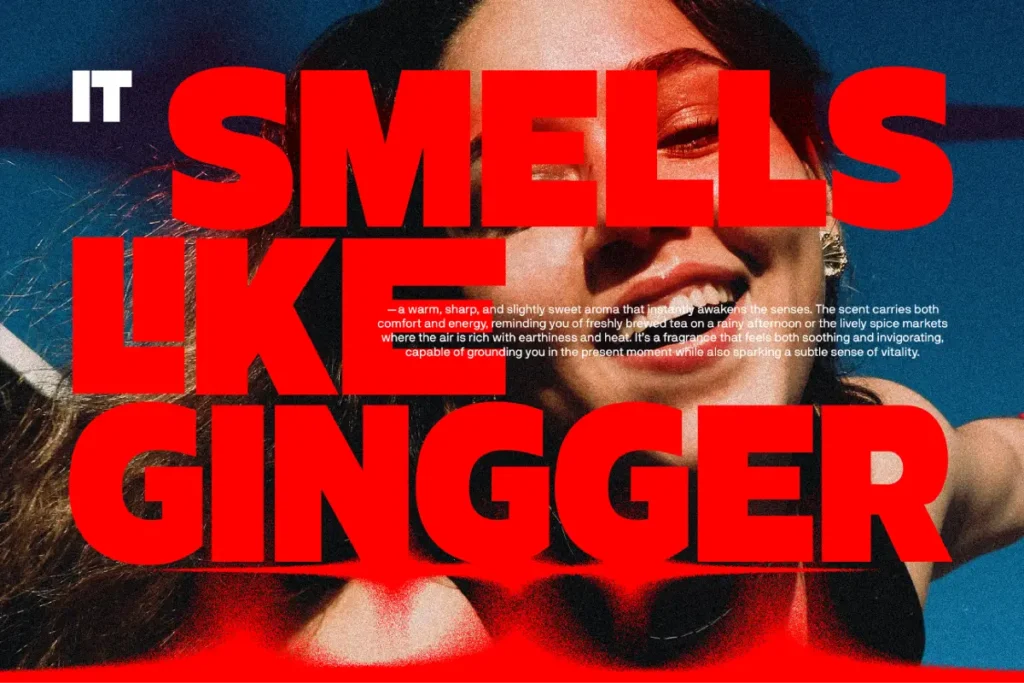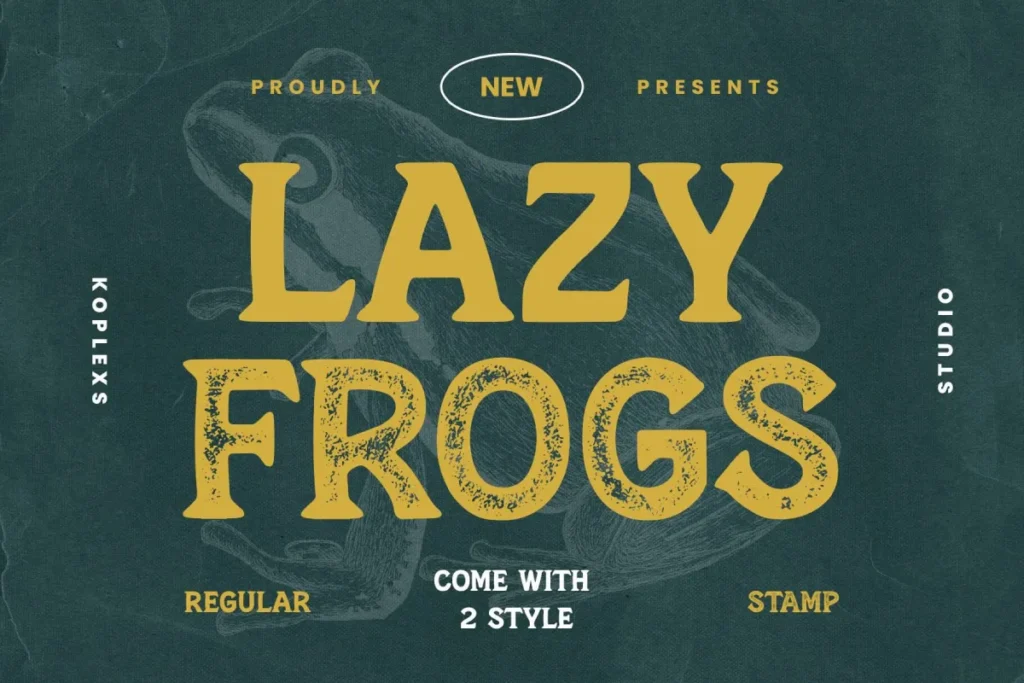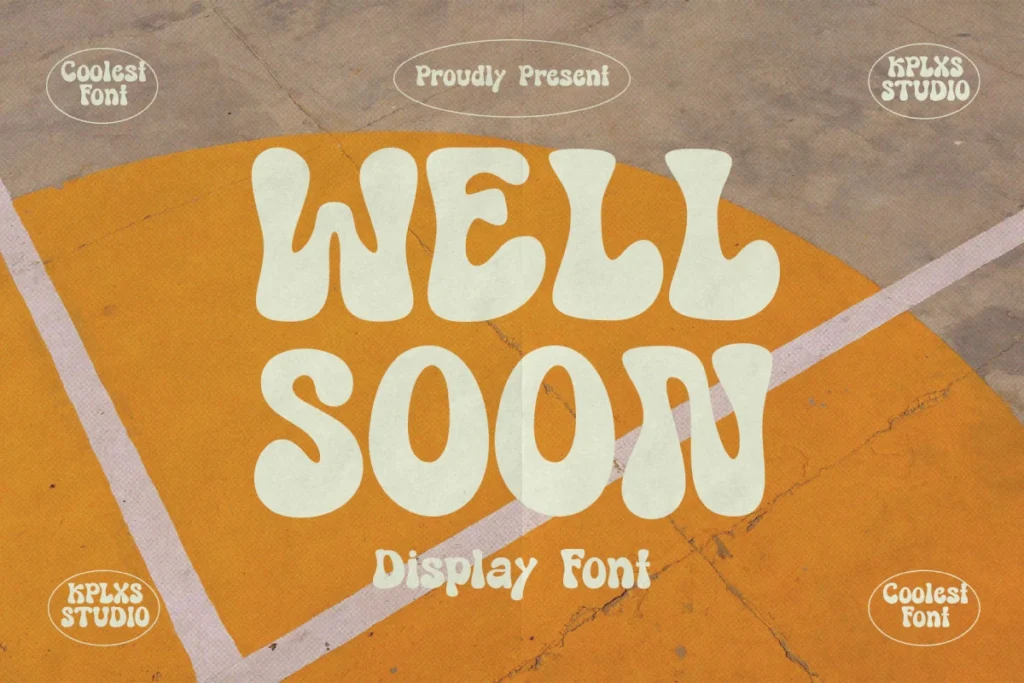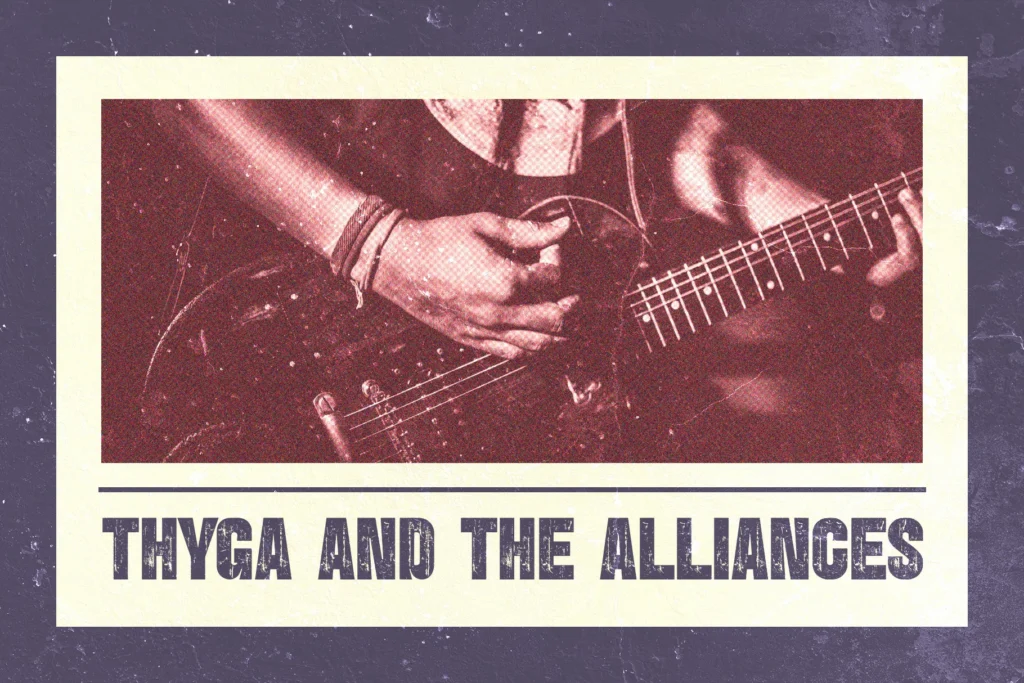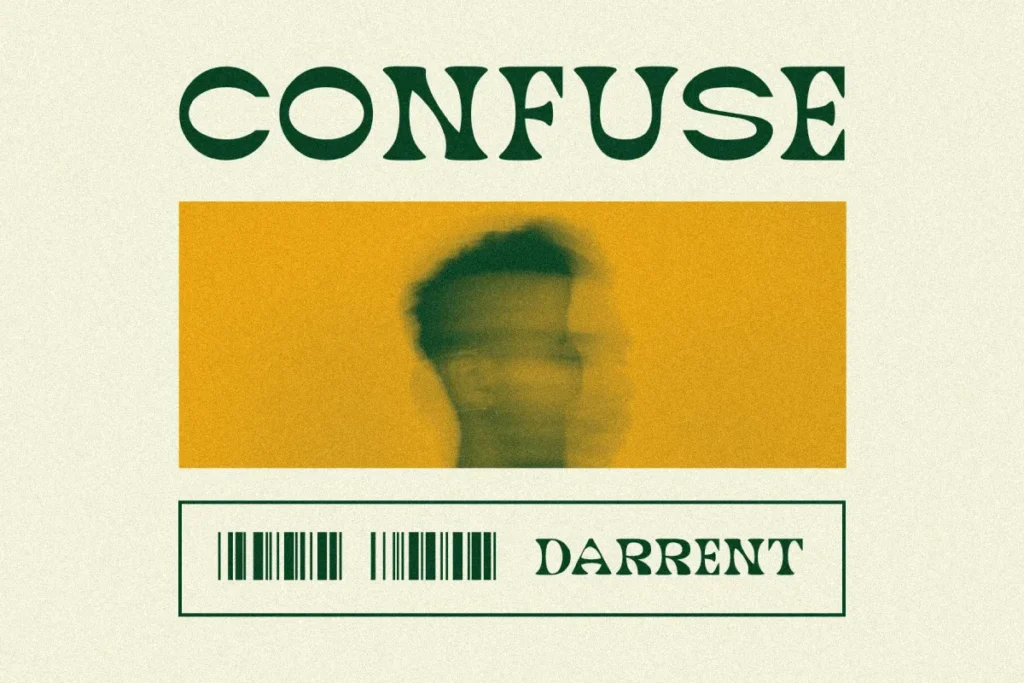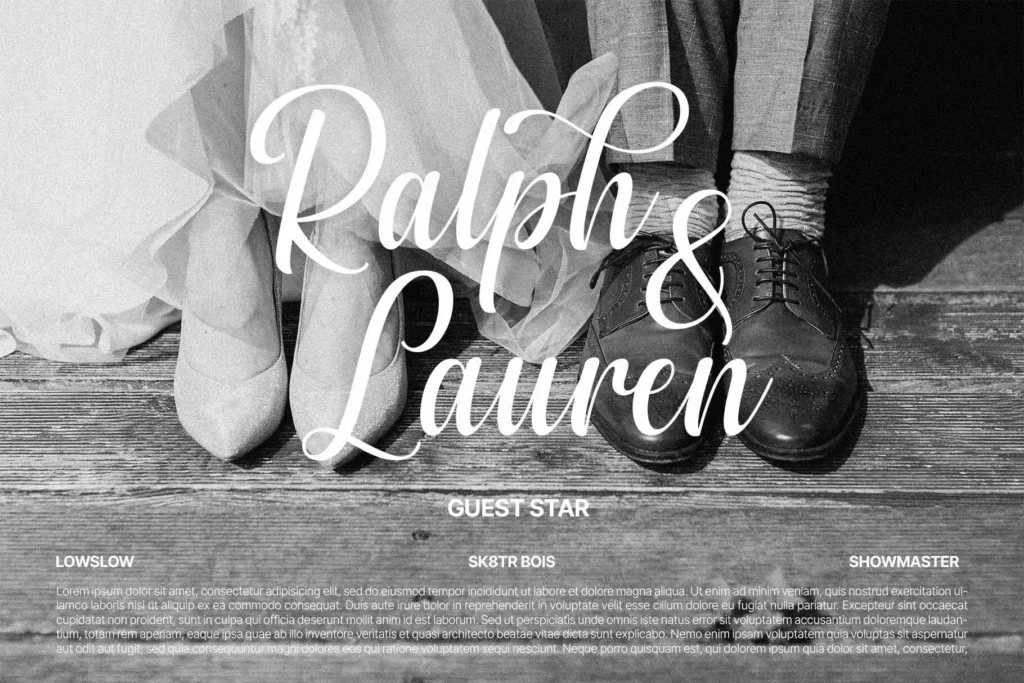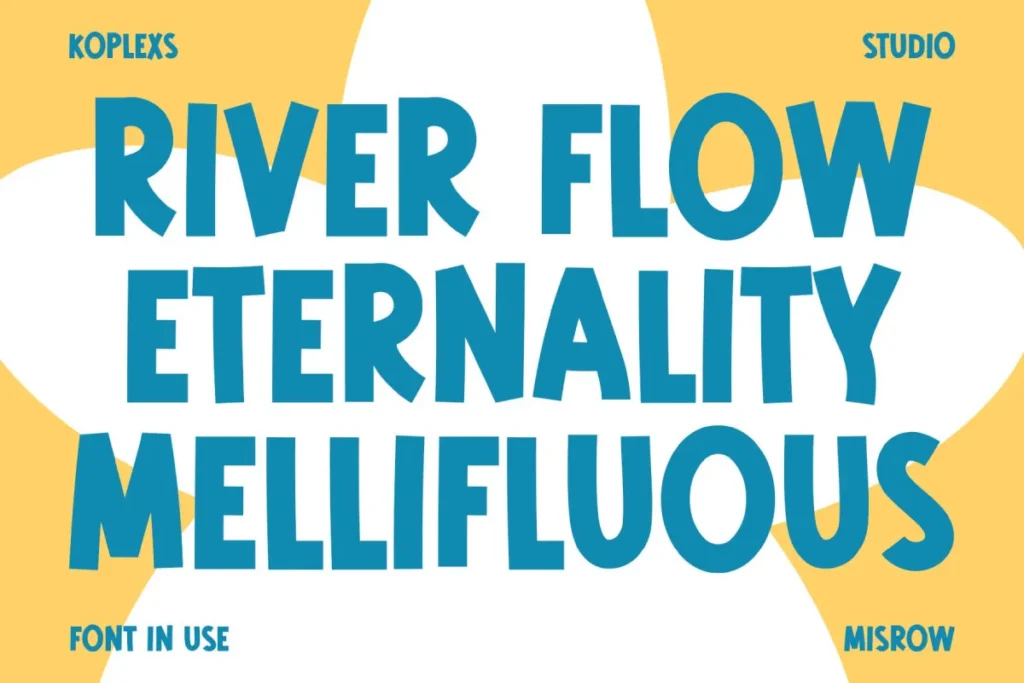
The Font Choice That Decides Your Clicks
Best Fonts for Thumbnails. Scroll through YouTube for just a few seconds and something becomes obvious.
Some videos immediately pull your attention, while others fade into the background.
In many cases, the difference is not the image. It is the text on the thumbnail.
Typography plays a quiet but powerful role in how viewers decide what to click. According to multiple creator economy studies and YouTube partner insights, thumbnails influence more than 70 percent of click decisions, and font choice is one of the biggest factors inside that visual moment.
Top creators understand this deeply.
They do not randomly choose a thumbnail font. They test it, refine it, and stay consistent with it because the right font can:
- Communicate emotion instantly
- Stay readable on small mobile screens
- Strengthen brand recognition
- Increase click-through rate without changing the video
In this article, we explore the best fonts for thumbnails used by top creators, why these fonts perform so well, and how typography quietly separates high-performing videos from ignored ones.
Why Top Creators Take Thumbnail Fonts Seriously
Fonts Shape First Impressions
Before someone reads your title, their brain reacts to the shape of the text.
Fonts send signals instantly:
- Thick fonts suggest urgency or confidence
- Condensed fonts suggest authority
- Rounded fonts suggest friendliness or fun
Top creators treat fonts as part of visual psychology, not decoration.
Readability Always Wins
Many new creators assume stylish fonts perform better. Data shows the opposite.
Creators with high click-through rates consistently prioritize:
- Clear letter shapes
- Strong contrast
- Simple geometry
On mobile devices where most YouTube views happen, fonts that look simple often outperform fonts that look artistic.
Common Font Traits Shared by Top Creators
Before naming specific fonts, it helps to understand what successful thumbnail fonts have in common.
Heavy Stroke Weight
Thin fonts disappear once YouTube compresses the image.
Top creators favor fonts with bold strokes that remain visible at small sizes.
Clean Letter Forms
Complex shapes slow down reading speed.
High-performing thumbnail fonts usually:
- Avoid script or handwritten styles
- Keep letters easy to distinguish
- Maintain consistent spacing
Emotional Match With Content
Serious topics and playful content rarely use the same typography.
Successful creators choose fonts that match the emotional tone of their videos.
30 + Best Fonts for Thumbnails for YouTube and Digital Content
Creating eye-catching thumbnails is crucial for designers, YouTubers, and content creators who want to grab their audience’s attention at first glance. A great font can make a thumbnail title pop and reflect the style of your content. Below is a collection of 30 outstanding fonts for thumbnails, each with its own unique vibe and strengths. These typefaces range from bold and playful to elegant and modern, ensuring there’s a perfect font for every project. Let’s explore the best fonts for thumbnails and see how each can elevate your visual design.
1. Wesh Font
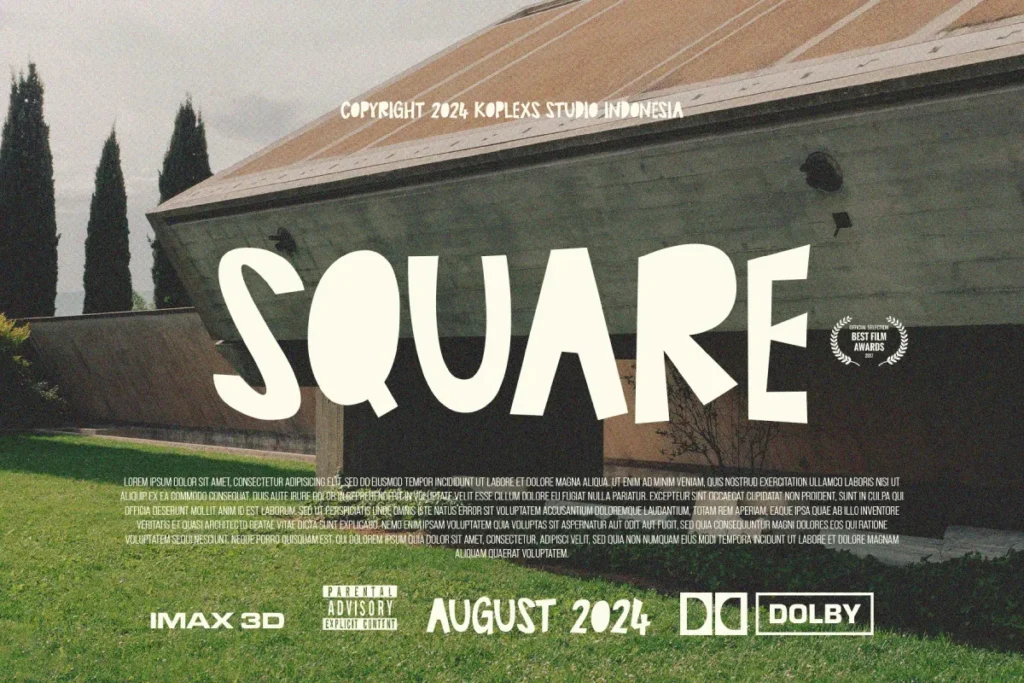
Wesh Font is a modern display typeface with a unique cutout style and quirky charm, guaranteed to make your text pop. This playful font adds depth and texture to your thumbnails, making it perfect for creative branding, posters, and social media graphics that need to stand out. With its versatile design and eye-catching look, Wesh has become a must-have for designers and content creators aiming to grab audience attention. Try Wesh Font to give your thumbnails a fresh, modern vibe that sets your content apart from the rest.
2. Javina Font
Javina Font is a bold rounded display font bursting with personality and retro charm. Crafted with smooth, bouncy letterforms, it blends playful vintage vibes with a modern sense of fun. This font is perfect for creating memorable logos, kids’ product packaging, and YouTube thumbnails where you want your text to pop with a friendly, approachable energy. Add Javina to your projects to give them a cheerful look that viewers will love.
3. Masku Font
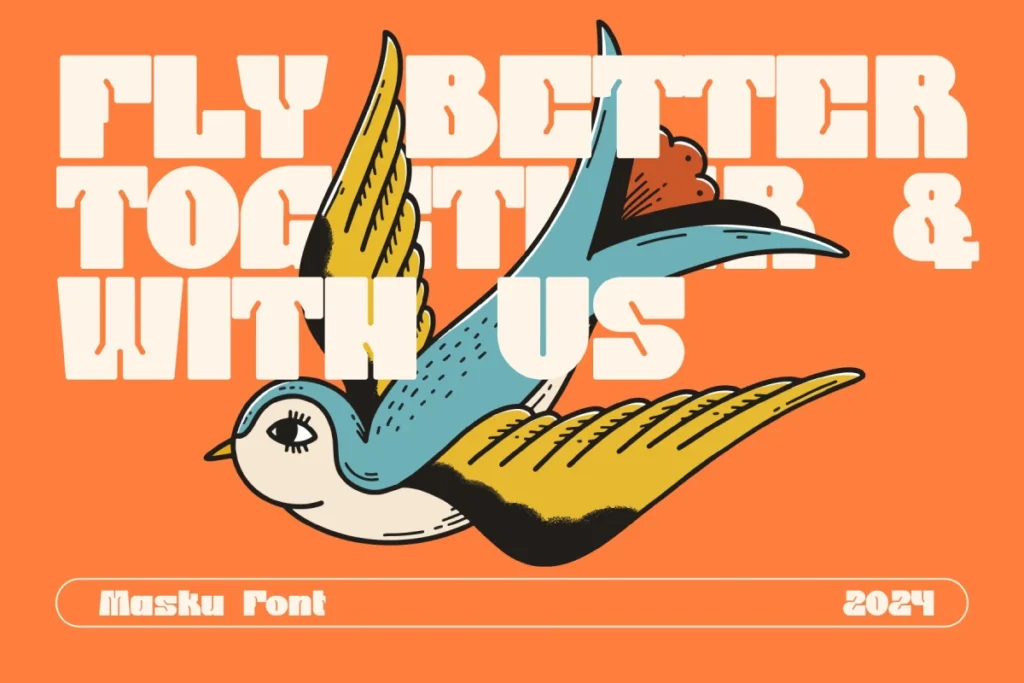
Masku Font is a bold and chunky display sans-serif that radiates confidence with its smooth, rounded shapes. It has a modern yet friendly vibe, making it perfect for brand logos, big headlines, and poster designs that need to make a statement. Masku’s strong, clean presence ensures text is easily readable even at thumbnail sizes, grabbing viewer attention at a glance. Add Masku Font to your creative arsenal to give your thumbnails and graphics a bold, contemporary punch.
4. Carity Font
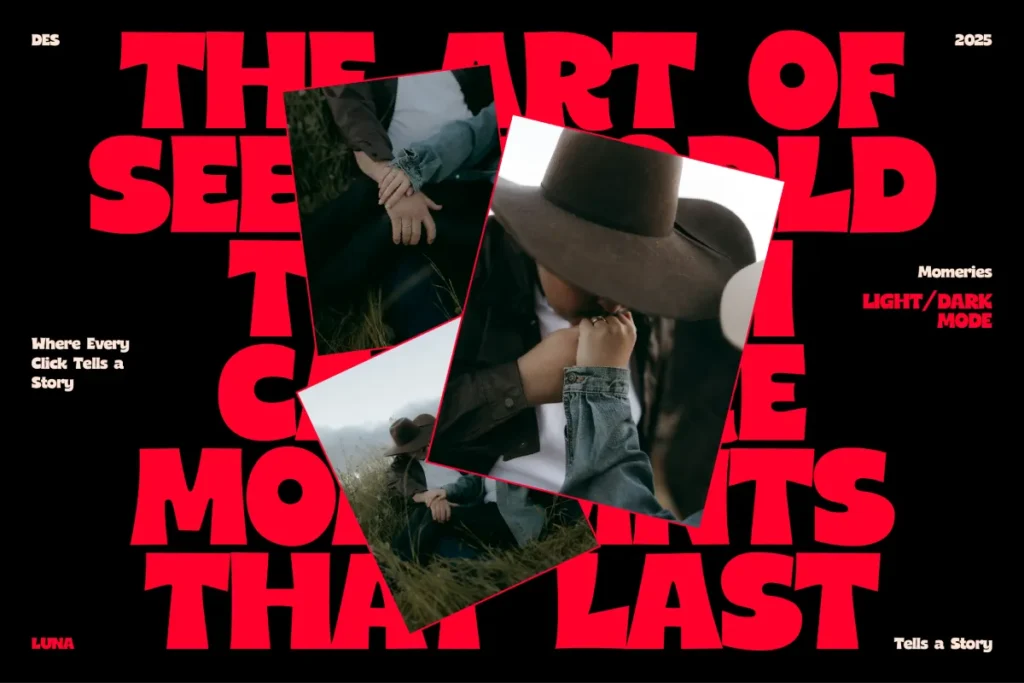
Carity Font is a bold modern display typeface featuring chunky, playful curves that instantly grab attention. It’s tailor-made for designers who want their branding, posters, or cover designs to make a strong visual impact. With its expressive shapes and sturdy presence, Carity ensures your text stands out boldly on any thumbnail or graphic. Make a statement with Carity Font in your next project and captivate your audience with its high-impact style.
Are aesthetic fonts good for YouTube thumbnails?
They can work when used sparingly. Most top creators avoid using them as primary headline fonts.
Do fonts really affect click-through rate?
Yes. Many creators report significant CTR increases after changing only the thumbnail font.
What fonts work best for YouTube Shorts?
Rounded or thick fonts perform well because Shorts rely heavily on fast emotional engagement.
Should I use different fonts for different videos?
Most top creators stick to one or two fonts to build brand recognition.